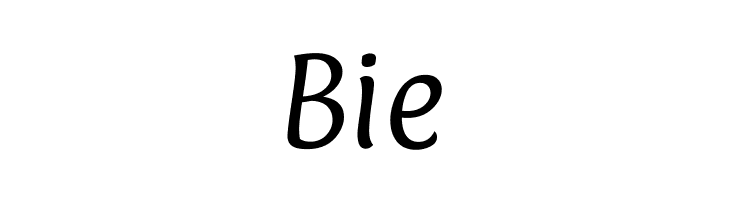
A bold, oblique font with strong, dynamic characters.
Ornamental, geometric Arabesque-inspired decorative glyphs.
A whimsical, decorative font with heart and flower embellishments.
An elegant, cursive script font with flowing, decorative strokes.
A playful, hand-drawn font with bold, irregular shapes and a cartoonish style.
A bold, blackletter font with sharp, angular lines and medieval flair.
A bold, hand-drawn font with a playful and informal style.
A playful, handwritten font with irregular strokes and a casual style.
A bold, modern sans-serif font with clean lines and uniform stroke weight.
A bold, futuristic font with geometric and rounded letterforms.
Invalid font display with placeholder symbols.
A bold, graffiti-inspired font with a rough, hand-drawn appearance.
A tall, elegant font with a modern yet classic appeal.
A sleek, modern font with geometric structure and dynamic style.
Outlined, rounded icons representing various social media and web platforms.
A classic serif font with elegant curves and moderate contrast, ideal for traditional and sophisticated designs.
A bold, brush-style font with dynamic, handwritten strokes.
A modern, rounded sans-serif font with a clean and approachable design.
A classic blackletter font with ornate, angular letterforms and decorative flourishes.
A decorative animal-themed dingbat font with playful illustrations.
An artistic font with gothic influences and dramatic serifs.
A bold, shadowed Blackletter-style font with intricate detailing.
Playful handwritten font with a casual style.
A bold, condensed sans-serif font with a modern and clean style.
A bold, angular font with a futuristic and industrial design.
A bold, brush-style script font with dynamic, interconnected letters.
A bold, italic font with dynamic and rounded characters.